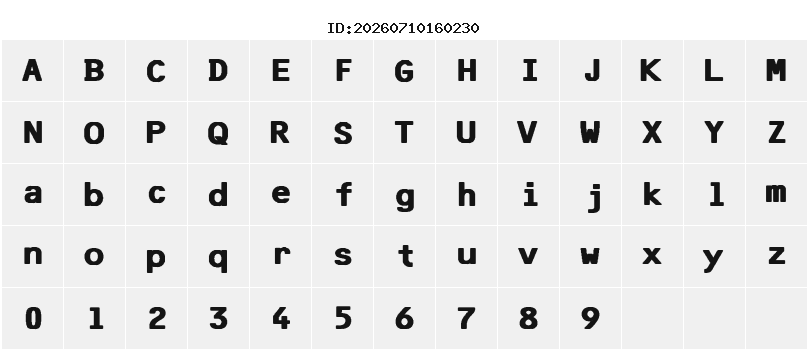
• Font Name: F25 Bank Printer
• Font ID: VolkerBusse,Berlin: F25 Bank Printer Bold: 2005
• Full Font Name: F25BankPrinter-Bold
• Version: Version 1.000 2005 initial release
• PostScript Name: F25BankPrinter-Bold
• Designer: Volker Busse, Berlin
• Manufacturer: Volker Busse, Berlin
About F25 Bank Printer.otf
F25 Bank Printer.otf is a modern, elegant sans-serif font designed for ultimate readability and visual harmony. Perfect for branding, headlines, web design, and print materials.